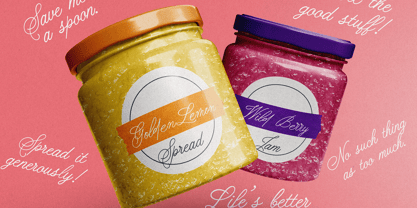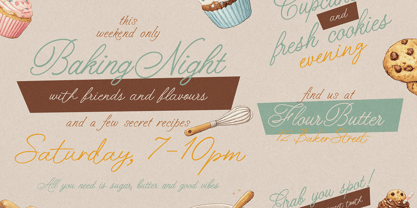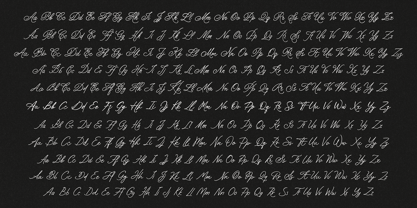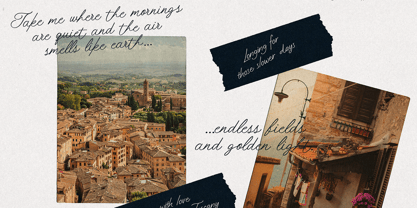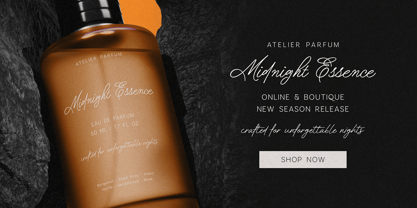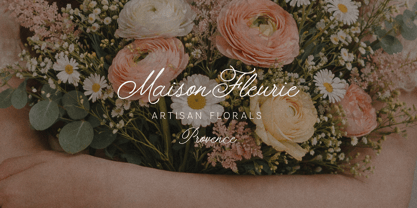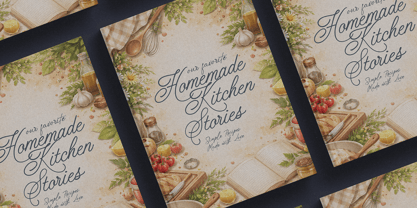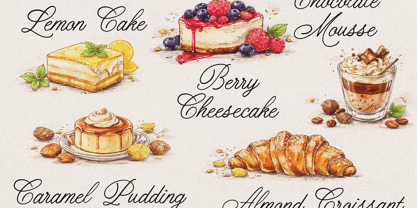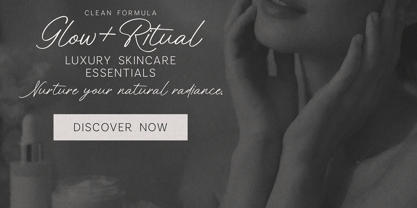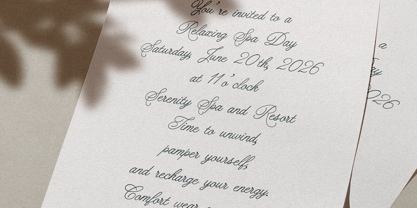
Scribe Tales
by VP Creative Shop
The Scribe Tales Font Family was designed by Vladimir Fedotov, Plamen Petrov and published by VP Creative Shop. Scribe Tales contains 11 styles and family package options. More about this family
Scribe Tales - Elegant Organic Script Typeface
Scribe Tales is a refined handwritten script font that blends natural flow with modern elegance. Designed with smooth curves and expressive strokes, it delivers a sophisticated calligraphy feel while remaining highly versatile for both digital and print design.
This typeface captures a perfect balance between luxury, warmth, and organic charm, making it ideal for branding, packaging, invitations, and editorial layouts.
Designers: Vladimir Fedotov, Plamen Petrov
Foundry: VP Creative Shop